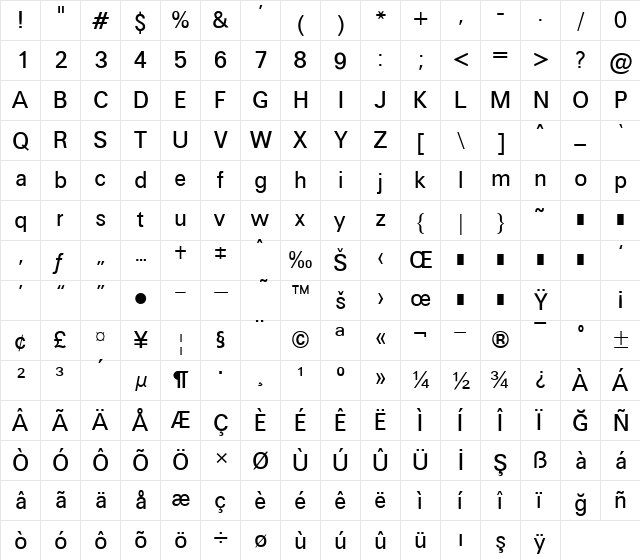
UnvTr Regular
Design Context for UnvTr Typeface
UnvTr takes a measured approach to typography — its balanced proportions and neutral character make it a reliable workhorse for both digital and print work.